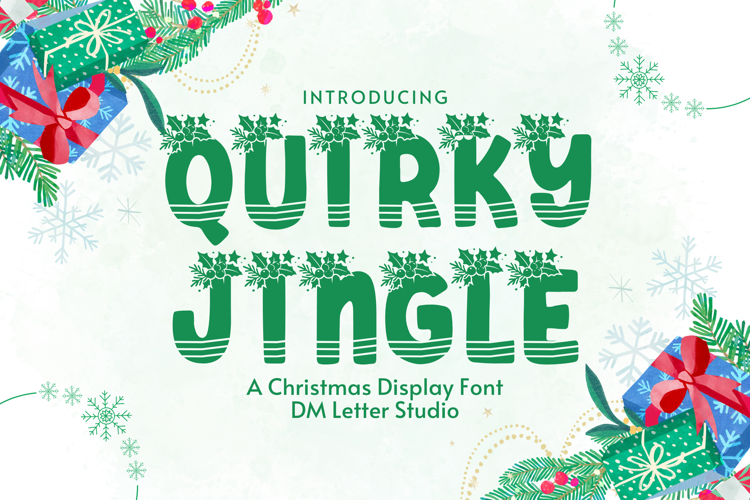
Quirky Jingle - Playful & Festive Holiday Font
Quirky Jingle
Quirky Jingle – Playful & Festive Holiday Font
Quirky Jingle is a joyful and spirited display font inspired by the magic of the holidays. With its bold, bouncy letters and cheerful character, this font is perfect for Christmas cards, festive merchandise, seasonal invitations, and holiday-themed crafts. Its hand-drawn charm and whimsical style add a lighthearted, magical vibe to every project it touches.
• Festive & Whimsical Design: Full of holiday cheer with playful letterforms.
• Bouncy & Bold Display Style: Eye-catching and fun to read.